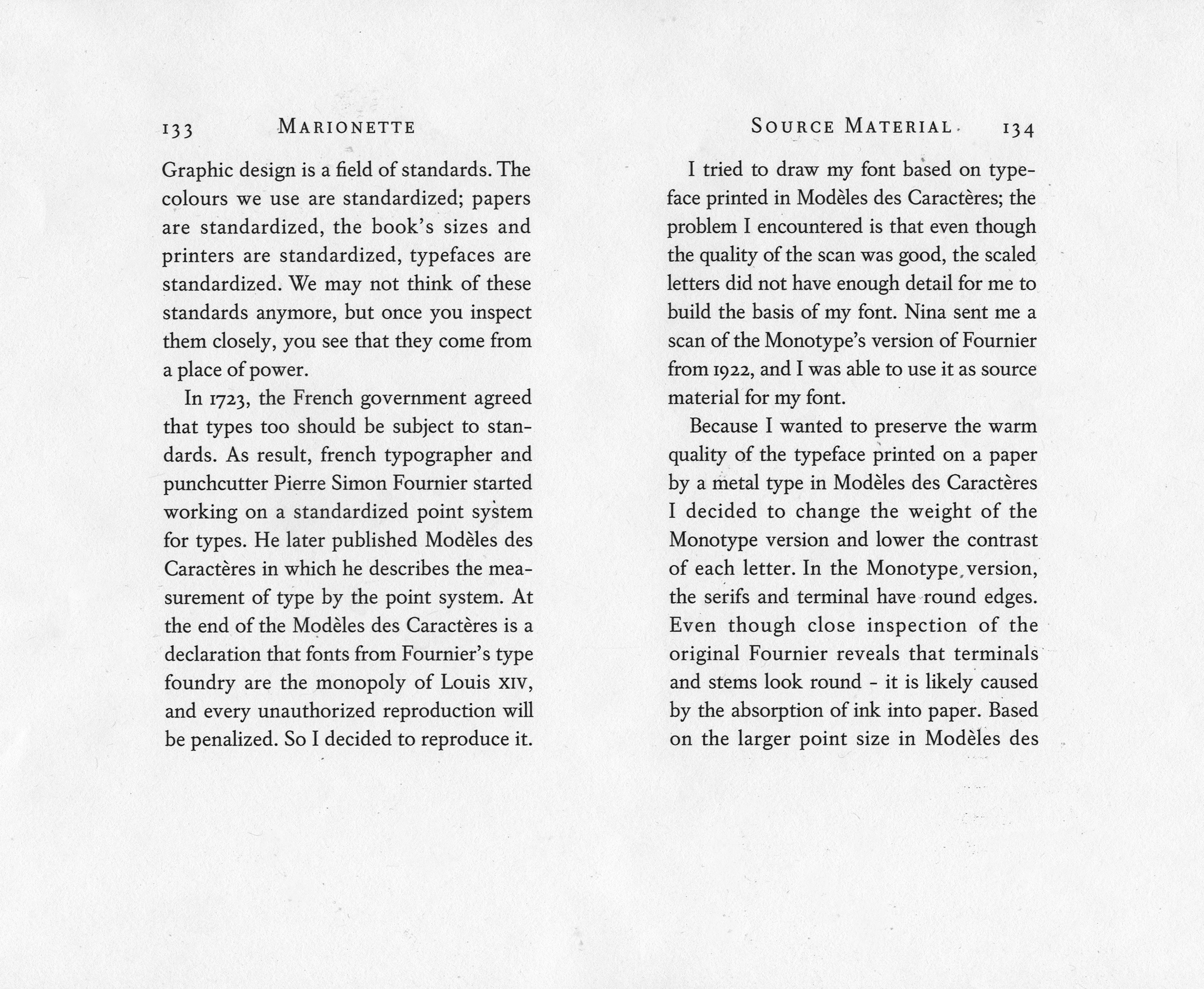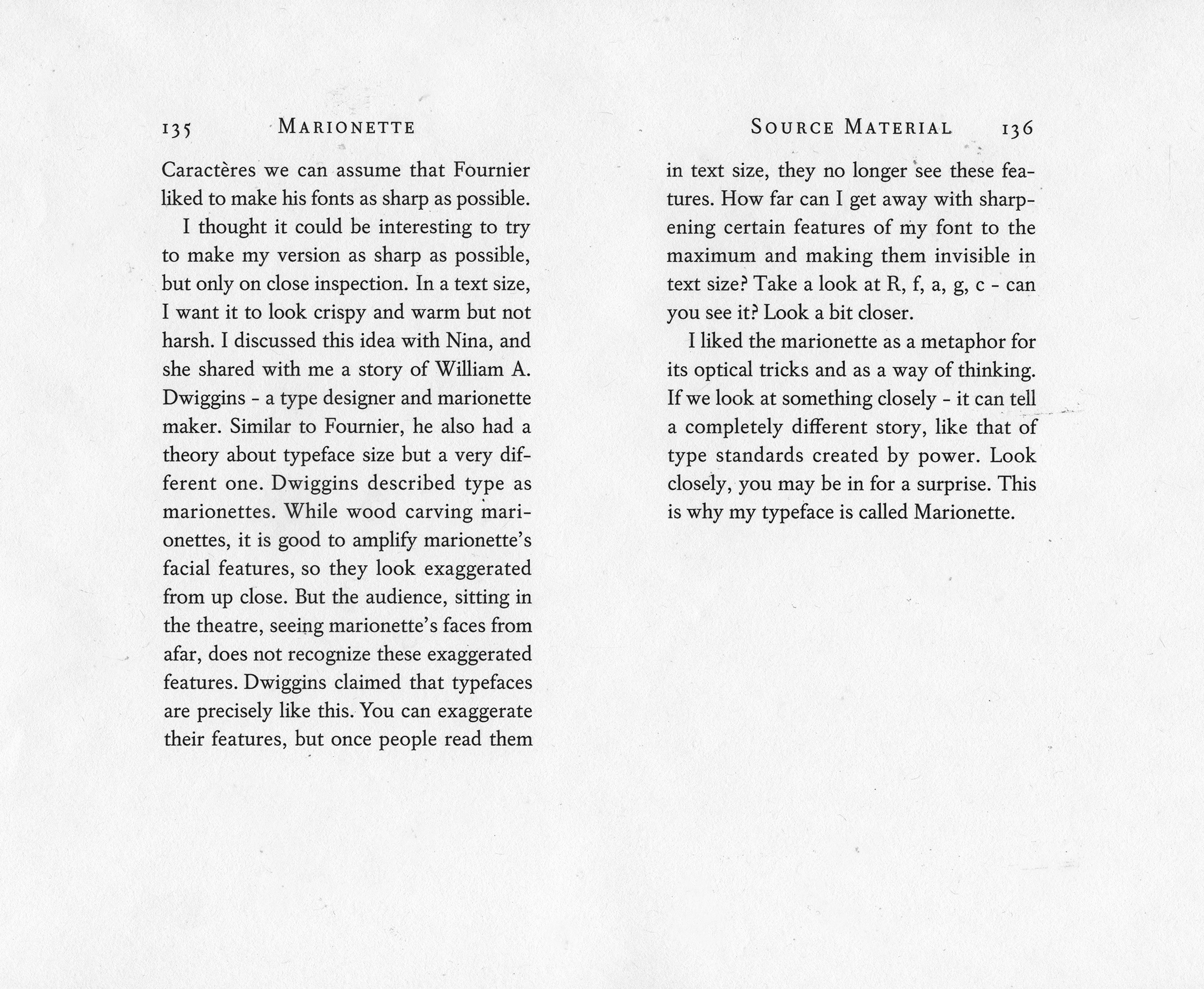
Anežka Minaříková
Marionette
Source material: Pierre Simon Fournier (Manuel Typographique and Monotype)
Fournier's printed scale of his point system, from Manuel Typographique, Barbou, Paris 1764, enlarged
American typedesigner William Addison Dwiggins as a marionette
Distinguished characteristic of Marionett's anatomy is combination of round and sharp shapes such as tail of the capital R
However, these sharp features become less pronounced and smoother while printed in text size, inviting comfortable reading.
Pangram text containing all the letters in Czech alphabet, including accents